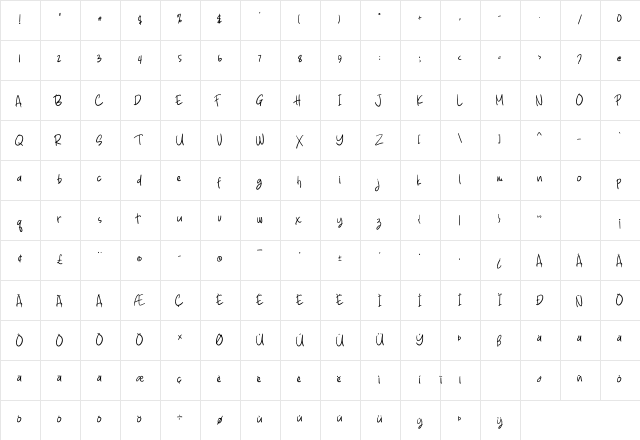
Bear Butter Regular
Design Context for Bear Butter Typeface
Bear Butter is a composed and adaptable typeface that performs quietly and consistently across a wide range of design contexts.